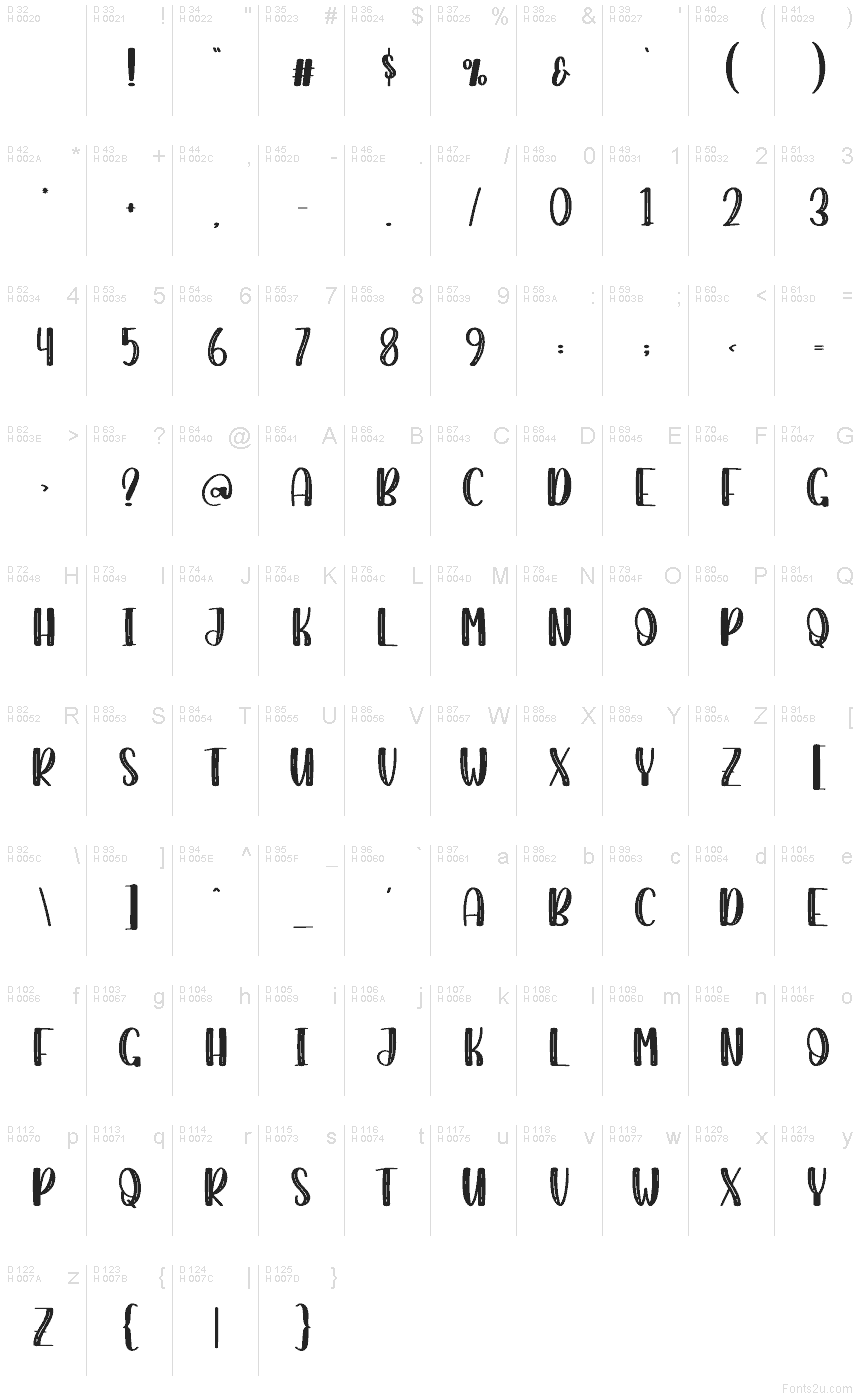
Miracles
Miracles font by Scratchones is an artistic font with a hand-drawn aesthetic and lively appearance. It features high contrast in texture coupled with a gentle, condensed build for a one-of-a-kind feel. This free display font includes retro-inspired design elements that end up giving it a timeless feel overall.
After all, enjoy Miracles for book covers, social media titles, video game designs or websites. Labels for cosmetics are another cool way to make use of it along with CD covers or album cover art designs.